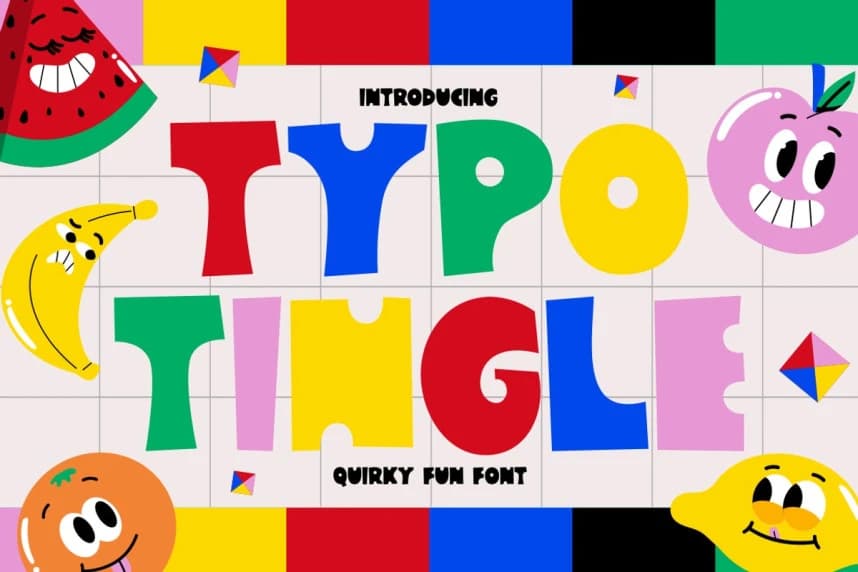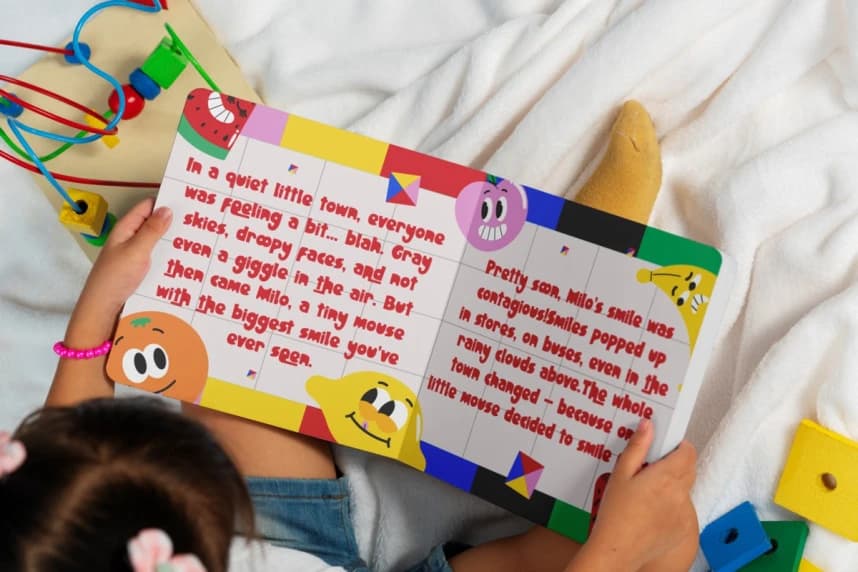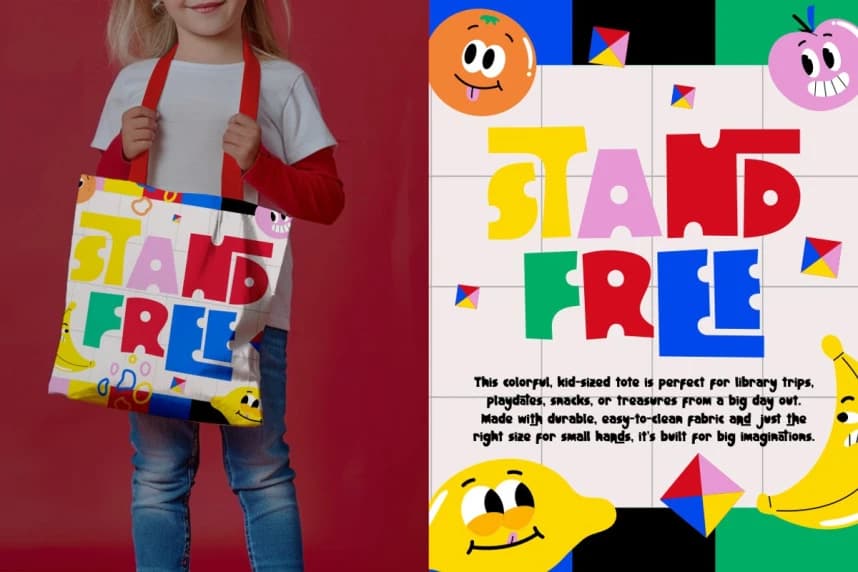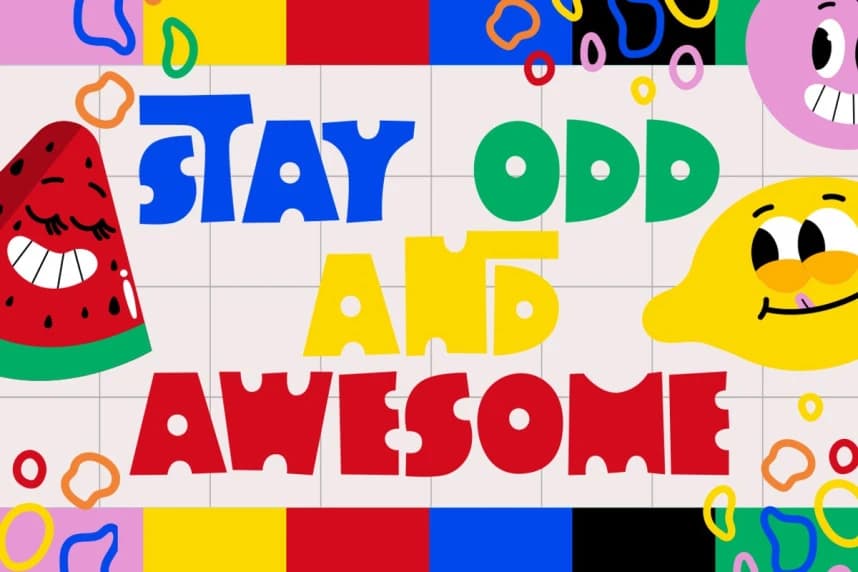
Typo Tingle Font
Typo Tingle Font, a display font that dances with personality! Each letterform is uniquely quirky, infused with bold and irregular shapes that exude childlike joy and comic charm. With a layout that mimics the organic cut-and-paste play of colorful building blocks